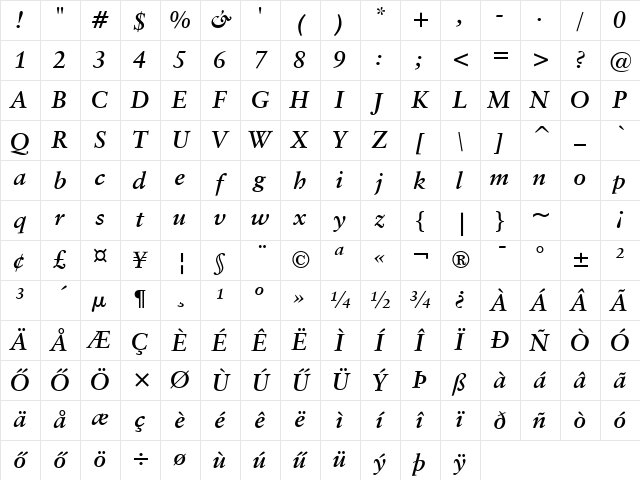
Classical-Garamond HU Bold Italic
Classical-Garamond HU Family
Design Context for Classical-Garamond HU
Classical-Garamond HU wears its vintage influences proudly, with letterforms that recall mid-century signage, classic packaging, and nostalgia-driven design. The slanted form adds forward momentum and visual energy. Its bold stroke weight gives it real presence on the page.
Font Pairing: Combine Classical-Garamond HU with a simple slab or neutral sans - period-accurate companions reinforce the vintage feel without competing for attention.
Pro Tip: Lean into Classical-Garamond HU's period character by pairing it with aged paper textures, muted colour palettes, and vintage illustration styles.